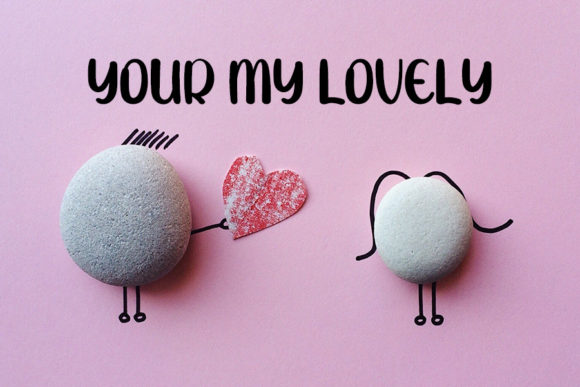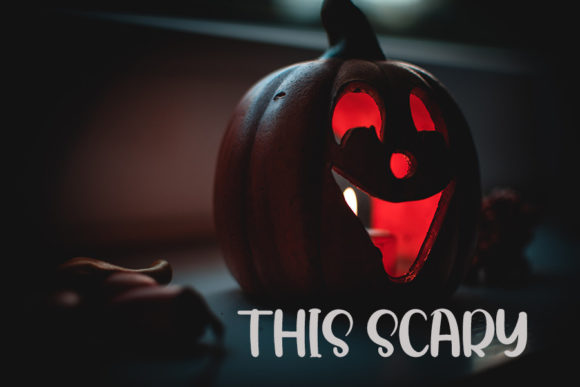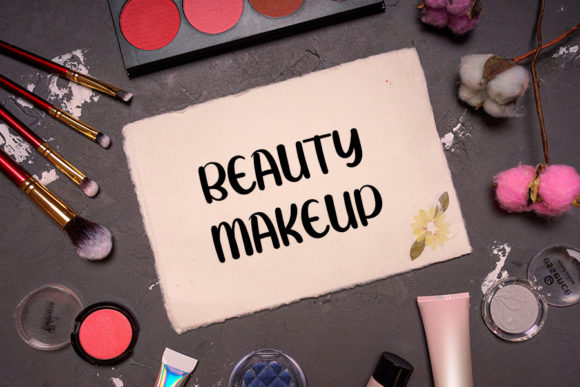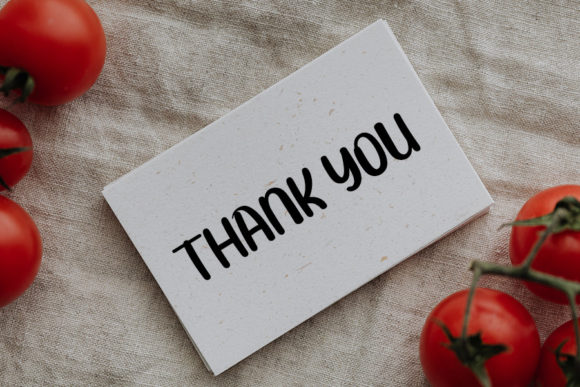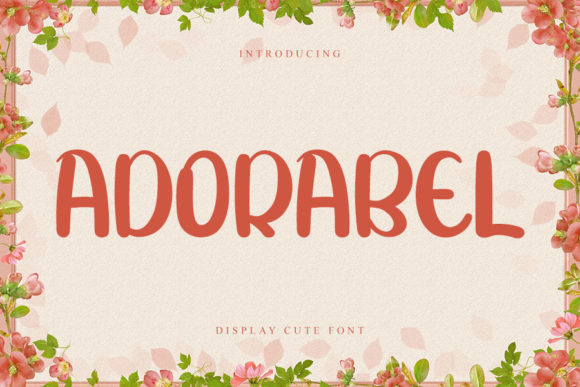
Introducing Adorabel Font: The Perfect Blend of Class and Casualness
Are you on the hunt for a font that exudes elegance, yet feels approachable and modern? Look no further than Adorabel Font, a stunning display font that is sure to capture your heart. Designed with care and attention to detail, Adorabel strikes the perfect balance between classic calligraphic influences and contemporary flair.
The Story Behind Adorabel Font
Adorabel Font is the brainchild of talented designers who aimed to create a typeface that would become a true favorite among designers, crafters, and anyone looking to elevate their projects. The result is a simple, yet sophisticated font that is perfect for a wide range of applications, from branding and advertising to packaging and digital media.
What Makes Adorabel Font So Special?
So, what sets Adorabel Font apart from other fonts out there? Here are just a few reasons why this font is sure to become your go-to:
- Classy Calligraphic Influences: Adorabel Font boasts beautiful, flowing lines that evoke the elegance of traditional calligraphy. Yet, it feels fresh and modern, making it perfect for designers who want to add a touch of sophistication to their work.
- Simple and Casual: Despite its refined appearance, Adorabel Font remains approachable and casual, making it ideal for use in a variety of contexts, from formal events to social media campaigns.
- Versatile: Whether you’re working on a logo, brochure, or website, Adorabel Font adapts seamlessly to any design, ensuring your project looks polished and professional.
Adorabel Font is a dream come true for designers and crafters who want to add a personal touch to their work. With its unique blend of classic and modern elements, this font is perfect for:
- Branding: Create a lasting impression with Adorabel Font, which is sure to make your brand stand out from the competition.
- Stationery: Add a touch of elegance to your stationery, including business cards, letterheads, and invoices.
- Digital Media: Use Adorabel Font to create stunning social media graphics, blog posts, and website headers that will engage your audience.
- Crafting: Whether you’re working on a scrapbooking project, making DIY cards, or creating handmade gifts, Adorabel Font is the perfect choice.
Why Choose Adorabel Font?
With so many fonts available, why choose Adorabel Font? Here are just a few compelling reasons:
- Unique: Adorabel Font offers a distinctive look that will set your projects apart from the crowd.
- Easy to Read: Despite its elegant appearance, Adorabel Font remains highly legible, ensuring your message gets across clearly.
- High-Quality: This font is designed to deliver exceptional results, whether you’re working on a large-scale project or a small, personal endeavor.
In conclusion, Adorabel Font is a true gem that deserves a spot in every designer’s toolkit. Its perfect blend of classic and modern elements makes it an incredibly versatile font that can be used in a wide range of applications. Whether you’re a seasoned designer or a crafting enthusiast, Adorabel Font is sure to become your new favorite. So why wait? Fall in love with Adorabel Font today and take your projects to new heights!